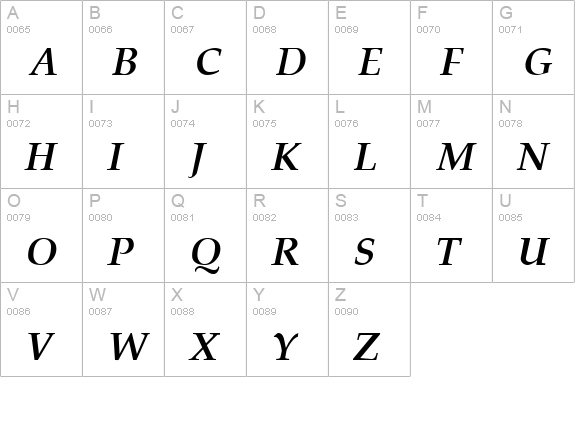
Palisade fed kursiv Font Details
Introducing the captivating Palisade fed kursiv font, a stunning choice for those seeking to add a touch of elegance and sophistication to their design projects. This font combines the classic allure of a serif typeface with a modern twist, creating a perfect balance between tradition and innovation. With its uniquely slanted italic style, Palisade fed kursiv font effortlessly exudes a sense of dynamic movement and creativity. Each letter is meticulously crafted with precision, resulting in a harmonious blend of sharp angles and graceful curves. The strokes of this font flow seamlessly, leaving a lasting impression of beauty and grace. Ideal for a wide range of design endeavors, Palisade fed kursiv font is particularly well-suited for editorial layouts, branding materials, packaging designs, and elegant invitations. Whether you're creating a magazine spread, a luxurious product label, or a refined wedding invitation, this font will elevate your project to new heights. One of the most appealing aspects of Palisade fed kursiv font is that it is freely available to download at FontsMarket.com. This means that you can enjoy the beauty and versatility of this font without any cost. It's a fantastic opportunity to enhance your design arsenal with a high-quality typeface that brings a touch of sophistication to any project. Don't miss out on the chance to elevate your designs with the enchanting Palisade fed kursiv font. Download it today from FontsMarket.com and unlock a world of creative possibilities. Immerse yourself in the elegance and allure of this font and watch as your designs come to life with a touch of refined beauty.